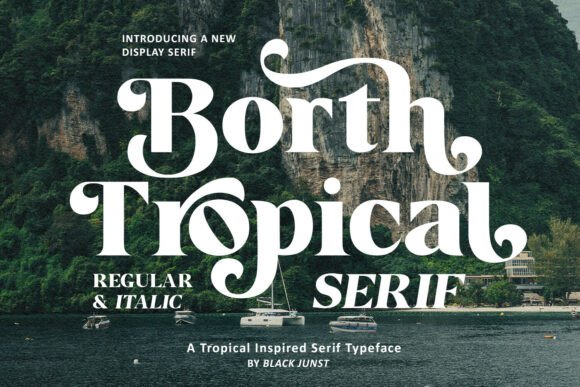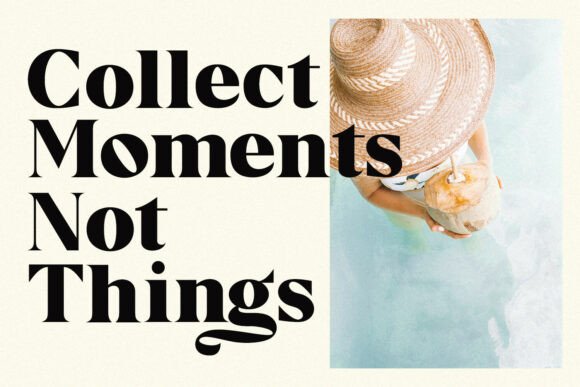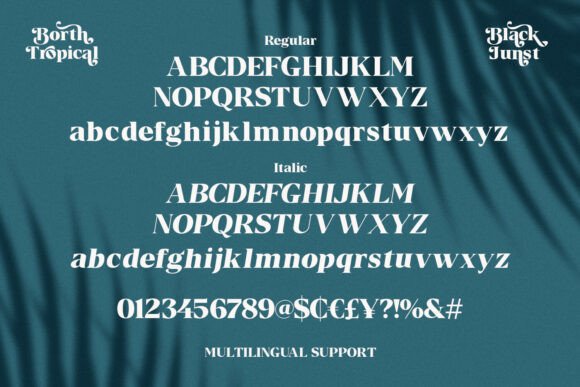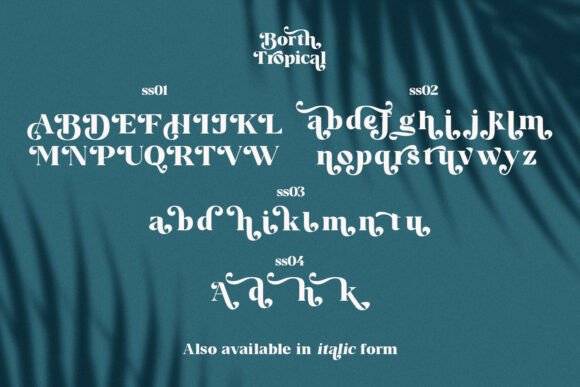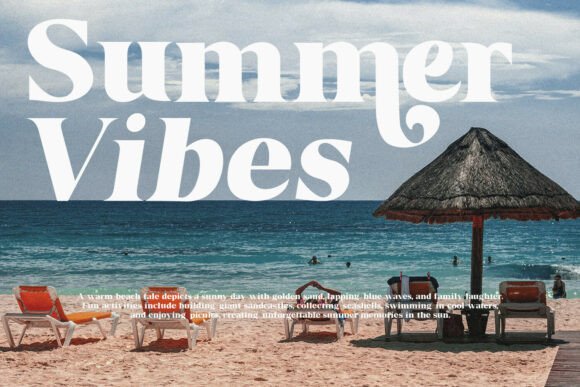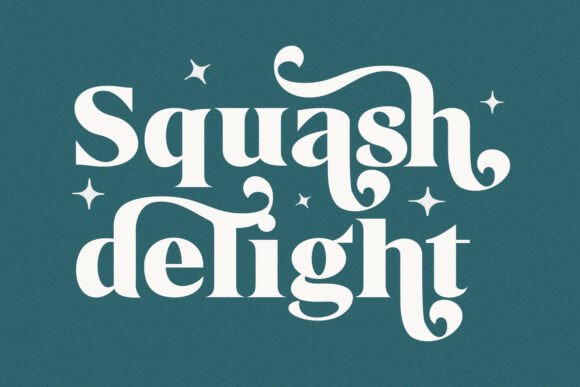
Discovering a Breath of Fresh Air in Typography
As designers, we’ve all been there – staring at a blank canvas, struggling to find the perfect font to bring our vision to life. It’s in these moments that we crave something unique, something that speaks to the essence of our creative intent. And that’s exactly what Borth Tropical Font does – it transports us to a world of lush landscapes and organic forms, where typography becomes a symphony of curves and lines.
Borth Tropical Font is a modern display serif typeface designed to evoke the warmth and confidence of tropical landscapes. Its bold letter shapes and smooth curves make it perfect for branding, editorial layouts, posters, packaging, and lifestyle-focused projects. With its distinctive character and elegant details, this typeface is a valuable asset for designers looking to add a premium and natural feel to their work.
Whether you’re working on a print or digital project, Borth Tropical Font’s Regular and Italic styles offer the flexibility to create expressive typographic compositions that truly stand out. Its unique personality makes it an ideal choice for headlines and display use, while maintaining clarity and balance.
Borth Tropical Font Key Features
- Unique Characteristics: Borth Tropical Font features a unique blend of modern and tropical elements, making it perfect for creating eye-catching and exotic designs.
- Font Style: The font comes in both Regular and Bold styles, allowing designers to add depth and emphasis to their text-based designs.
Borth Tropical Font Review
Overall, I was excited to dive into the Borth Tropical Font, and I have to say it’s a unique find. ✨ The font’s tropical vibes are perfectly captured in its curved lines and organic feel, making it a great choice for summer-themed projects or anything that needs a relaxed, beachy tone.
The Borth Tropical Font has some great features, including:
- ✨ High-quality vector files for seamless scalability
- ✨ A wide range of character sets, including international characters
- ✨ Excellent legibility, even at smaller font sizes
- ⚠️ Limited customization options for the font’s color palette
- ⚠️ May not be suitable for formal or professional projects due to its casual feel
- ⚠️ Some users may find the font’s weight inconsistent across different characters
Overall, I’d say the Borth Tropical Font is a great choice for projects that need a fun, carefree vibe. While it’s not perfect, its unique design and high-quality files make it a solid addition to any designer’s toolkit.
For best results, pair Borth Tropical Font with bright and pastel colors to create a tropical vibe.
For best results, use Borth Tropical Font in combination with tropical-themed graphics and illustrations.
For best results, use Borth Tropical Font in headings and titles to create a cohesive and tropical theme.
Some common use cases for Borth Tropical Font include:
Tropical-themed invitations and event materials
Summer-themed marketing materials and campaigns
Travel and adventure branding and advertising
For best results, experiment with different font sizes, colors, and styles to create a unique and eye-catching design.